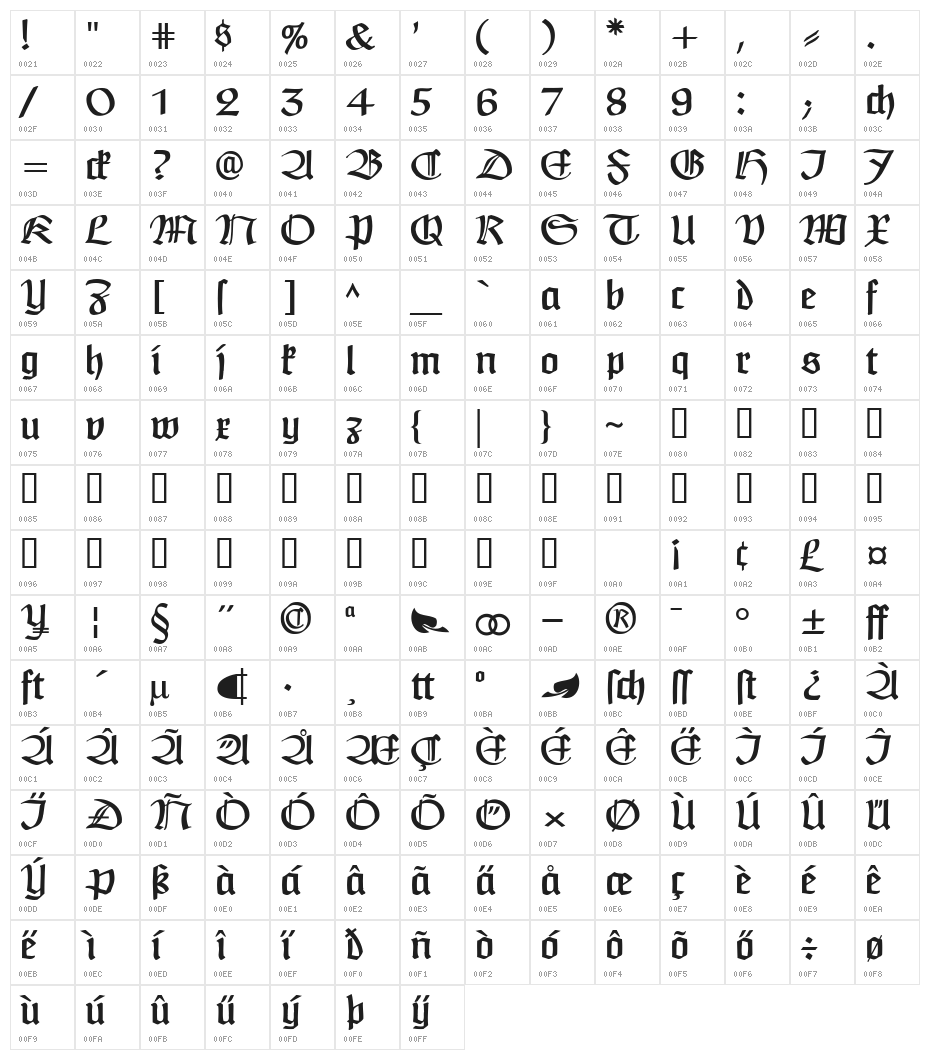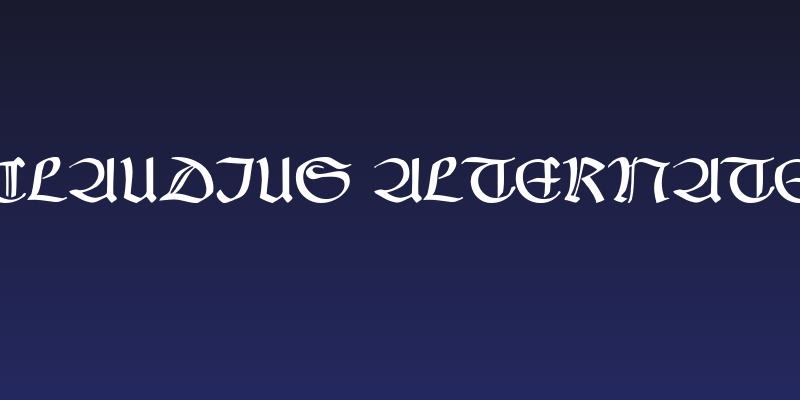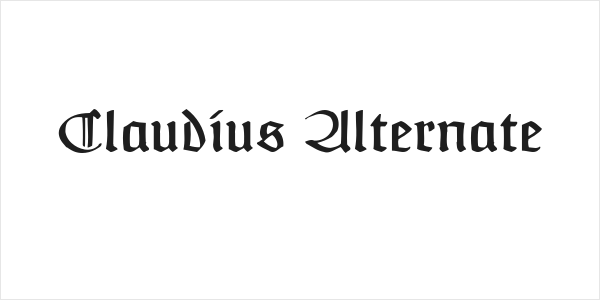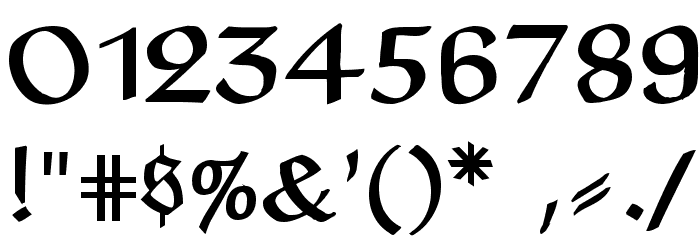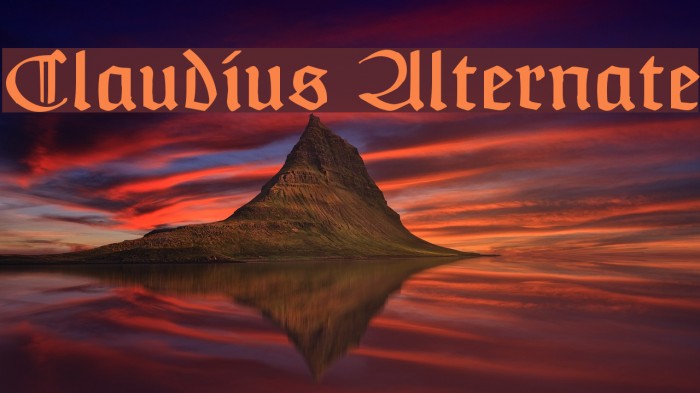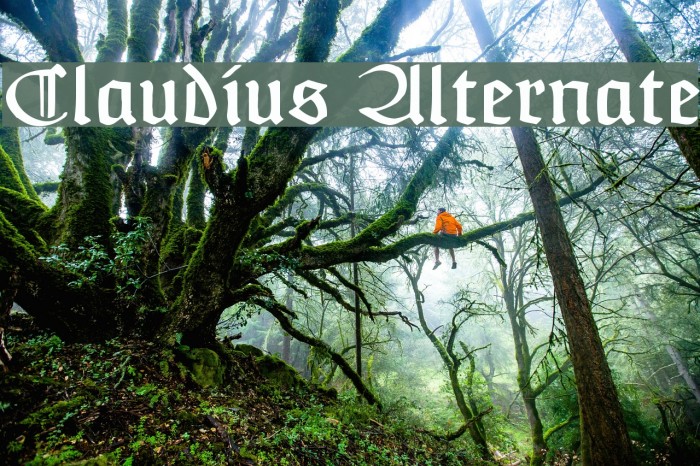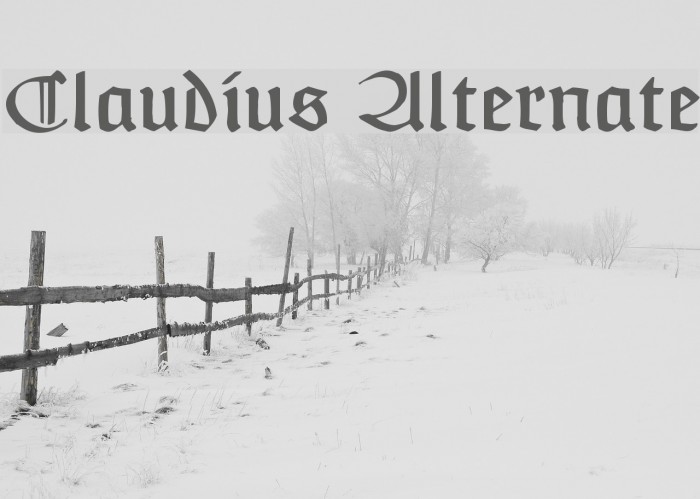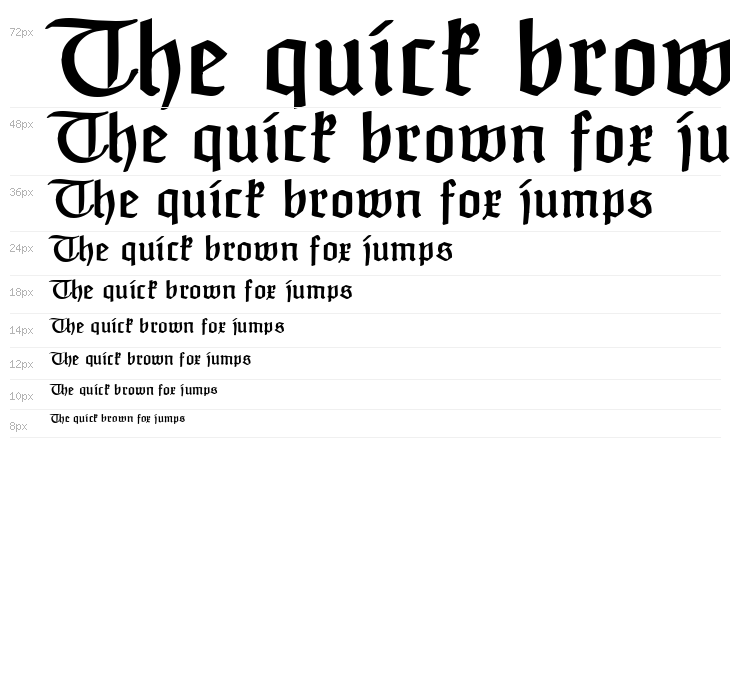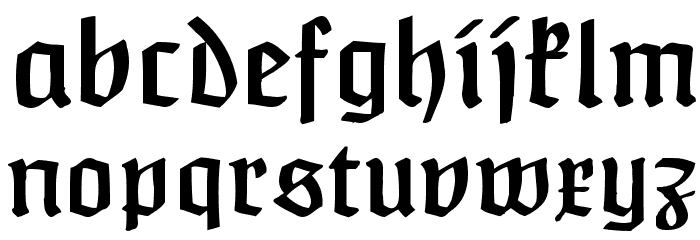
Claudius Alternate Font
Claudius Alternate Description
This font exhibits a classic blackletter style, characterized by its intricate and ornate letterforms. The uppercase letters are particularly elaborate, with sharp angles and dramatic flourishes that evoke a sense of historical elegance. The lowercase letters maintain a consistent style, with bold strokes and a slightly condensed appearance. The numerals are equally stylized, featuring unique curves and angles that align with the overall aesthetic. Special characters are designed with the same attention to detail, ensuring a cohesive look across all glyphs. This font is ideal for projects that require a touch of medieval or gothic flair, offering a distinctive and eye-catching appearance.
| Use Case | Headlines, Logos, Decorative text |
| Proposed Projects | Suitable for historical documents, invitations, posters, and branding that require a medieval or gothic aesthetic. |